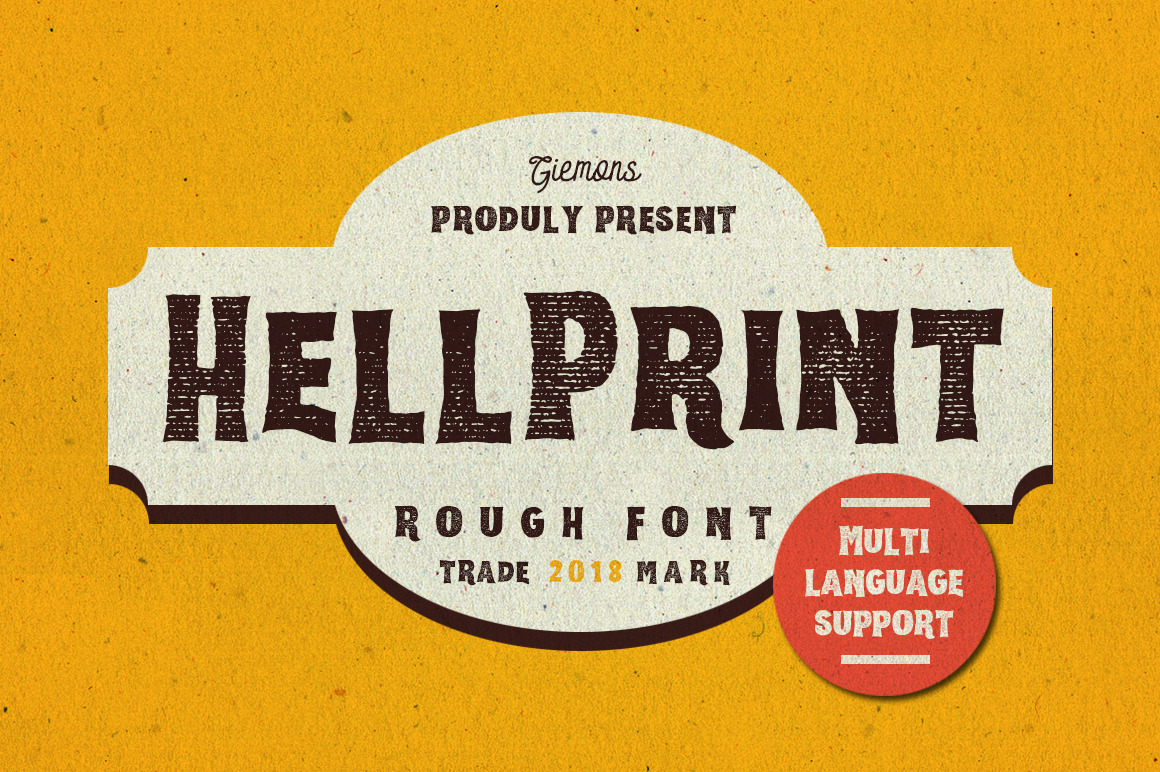
Hellprint Typeface
a Hellprint Typeface is Rough Font. Can make it easier to convey the message in your design. Use for awesome display, labeling, clothing, movie sceen, poster, movie title, gigs, album covers, logos, and much more.
- Multilanguage support